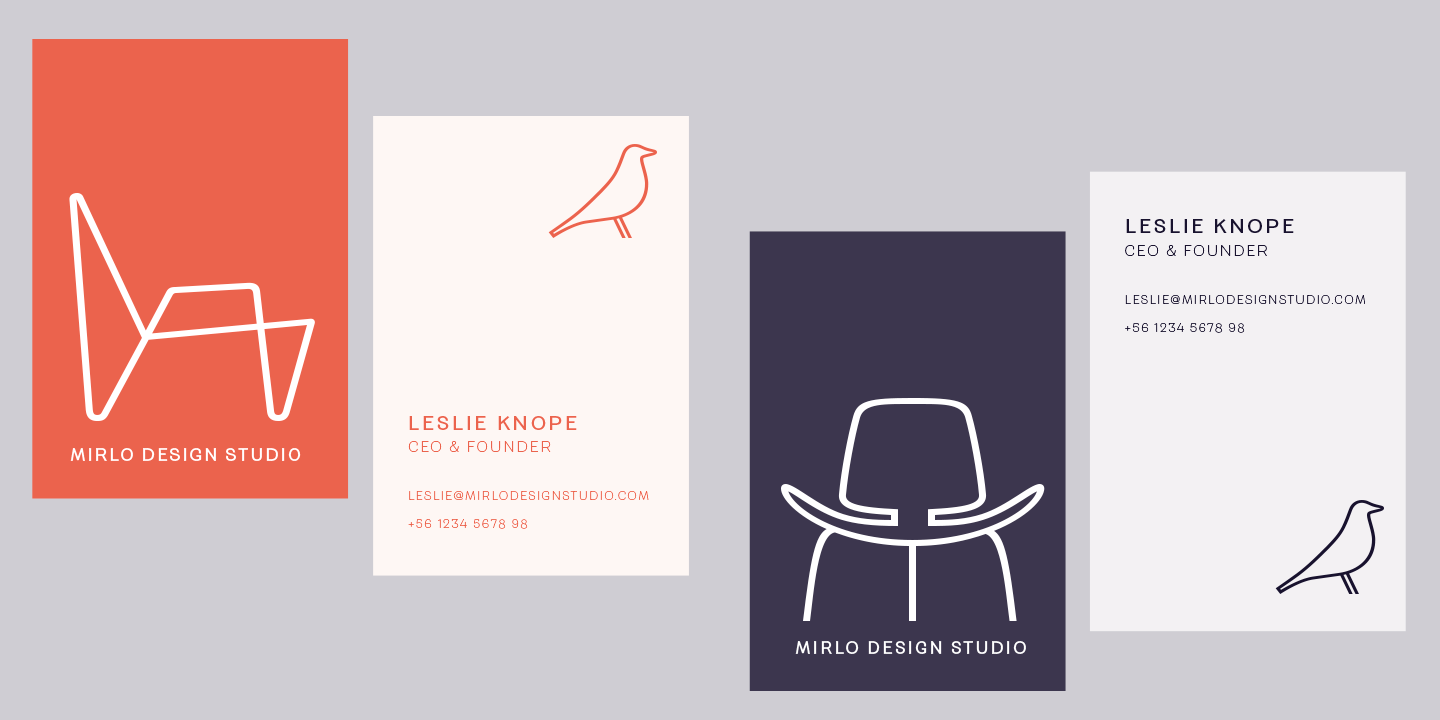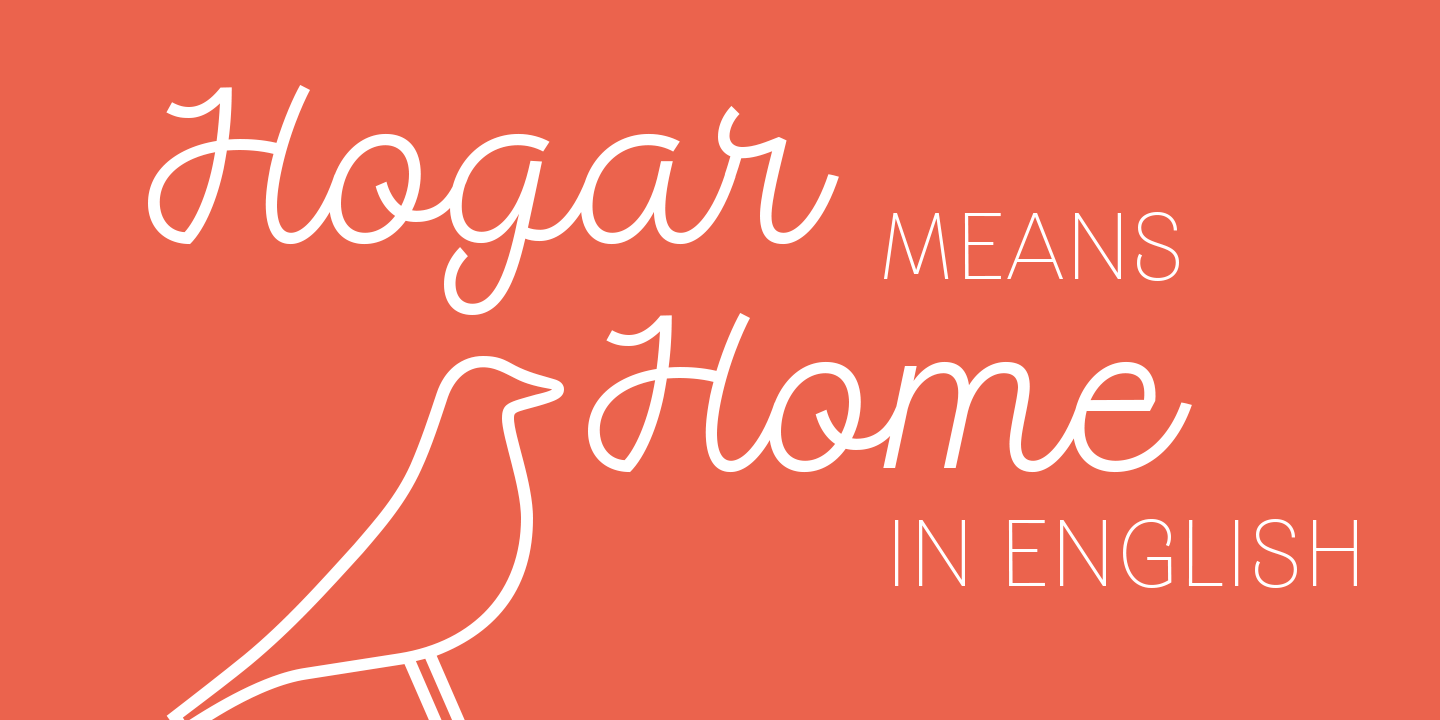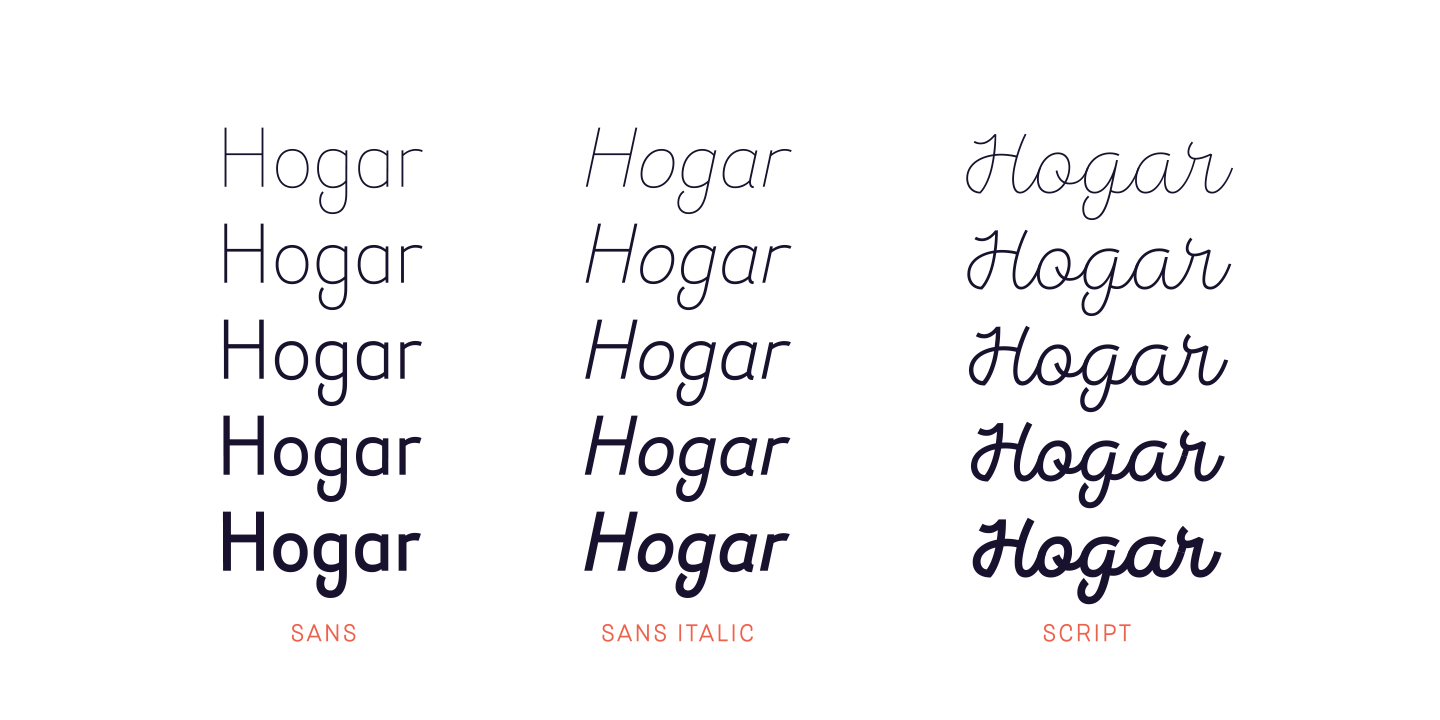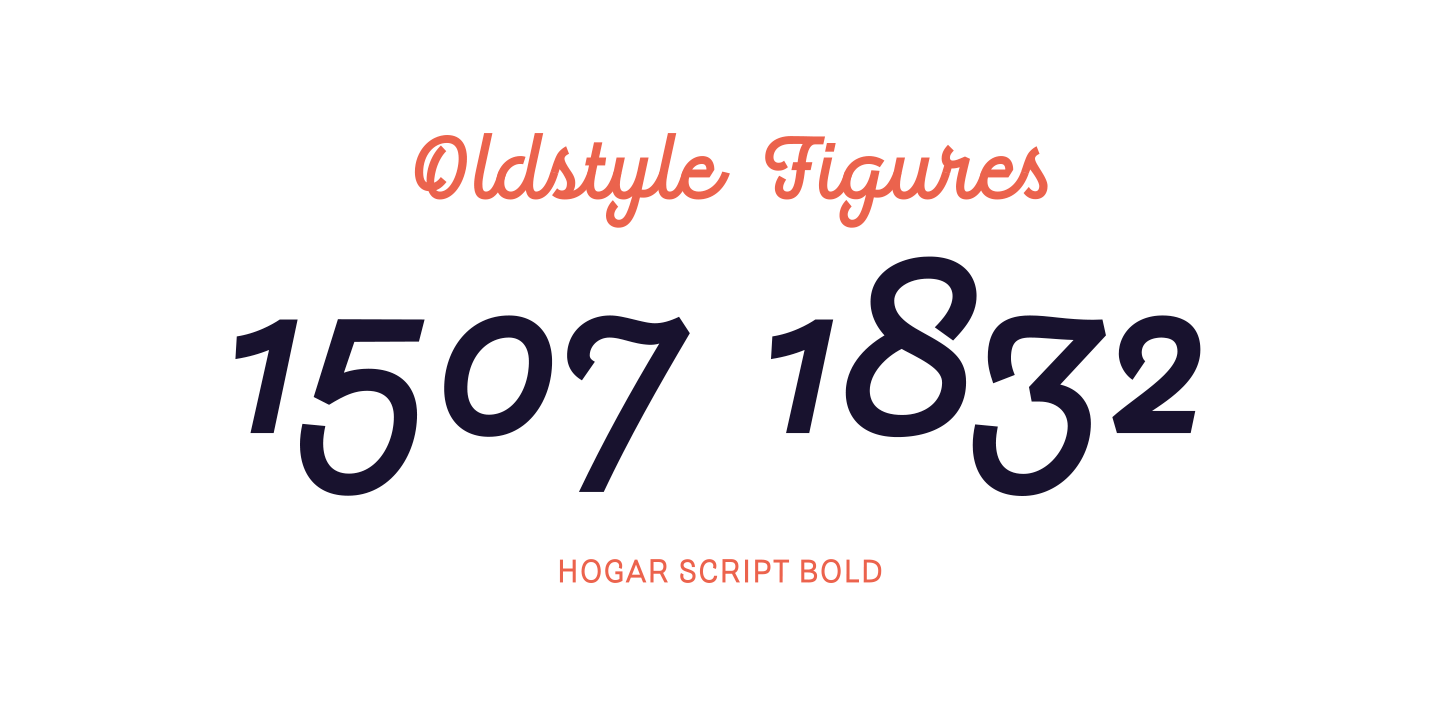
The system comes with a monolinear style in sans and script versions, each including 5 weights, that share similar proportions, weight interpolation and details. Hogar is basically a sans with script gestures and a script with sans shapes.
In order to make the system more complete, I included an italic version, also in 5 weights, which represents a transition between both main styles. Additionally, I developed a set of monolinear dingbats including some furniture designs by well-known architects..
The family supports more than 200 Latin derived languages.